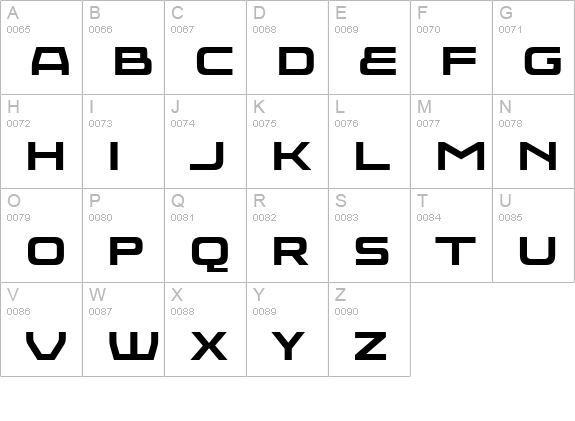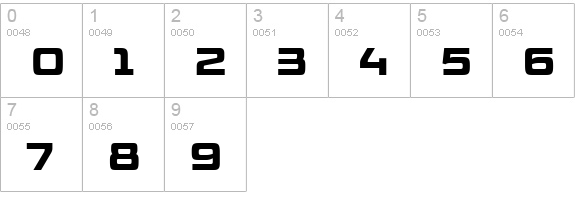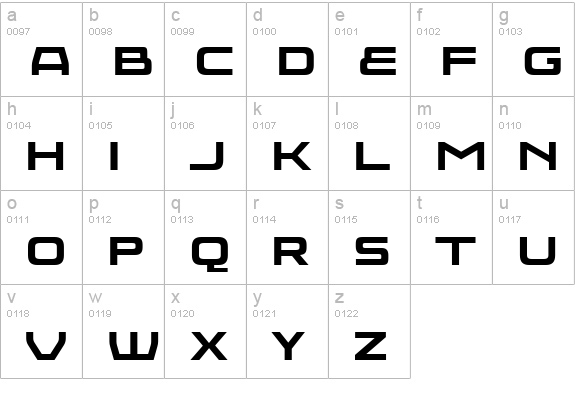
Injekuta Rg Bold Font Details
Injekuta Rg Bold is a strong, high-contrast variant in the Injekuta typeface family \xE2\x80\x94 well suited to headlines, attention-grabbing titles, and strong calls-to-action.
Injekuta Rg Bold font is a visually striking and modern typeface that exudes strength and confidence. With its bold lines and sharp edges, this font is perfect for making a bold statement in your designs. Whether you're creating posters, logos, or branding materials, Injekuta Rg Bold will command attention and leave a lasting impression. What's even better is that Injekuta Rg Bold font is available for free download at FontsMarket.com. This means you can easily access this powerful font and incorporate it into your projects without any cost. Don't miss out on the opportunity to elevate your designs with the impactful and dynamic Injekuta Rg Bold font. Download it now and let your creativity shine!